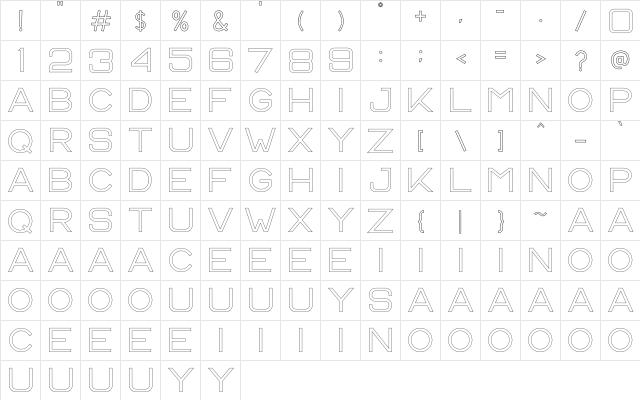
CS Harley Outline Regular
Design Context for CS Harley Outline Typeface
CS Harley Outline brings ornamental detail and strong personality to headlines and identities, where visual impact matters more than quiet functionality.
Font Pairing: Pair with a clean neutral sans-serif for body copy to let CS Harley Outline's character lead without overwhelming the composition.
Pro Tip: Use CS Harley Outline exclusively at display sizes — it was designed to be seen, not read at length. Let a neutral companion handle body copy.